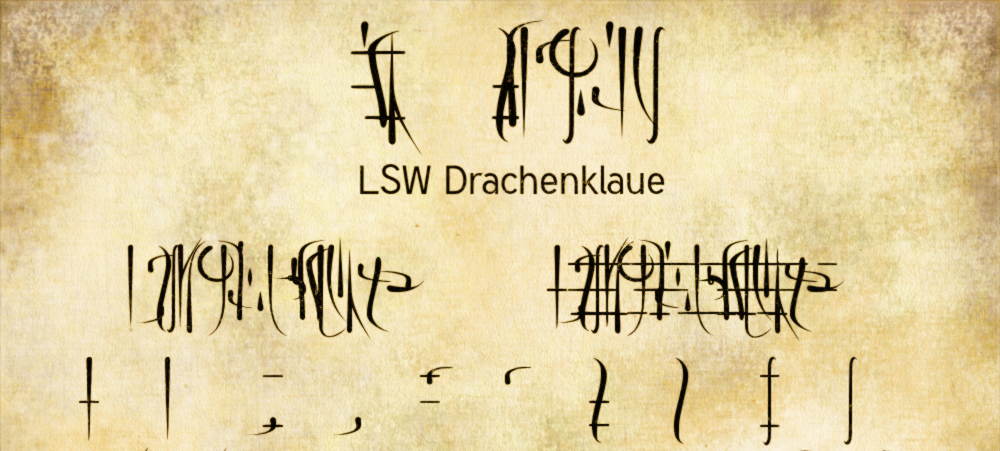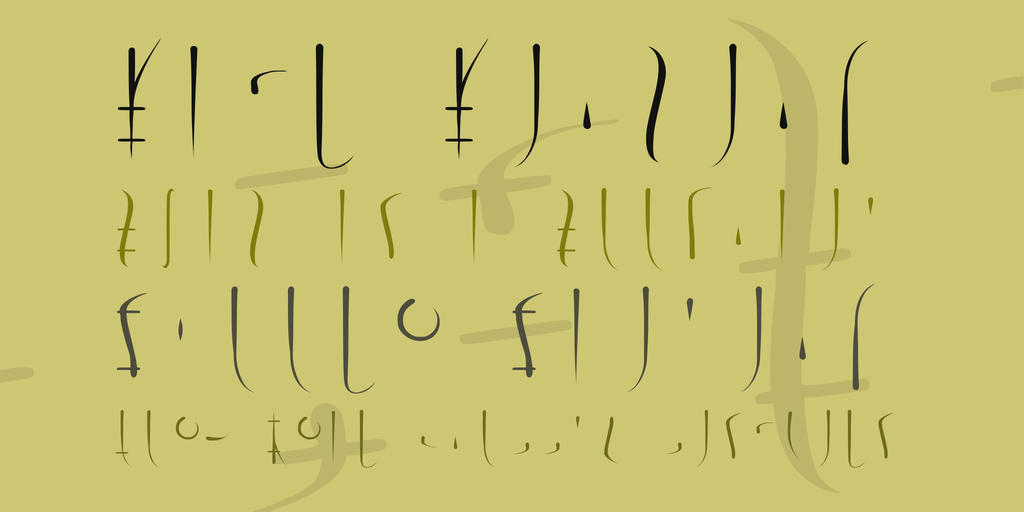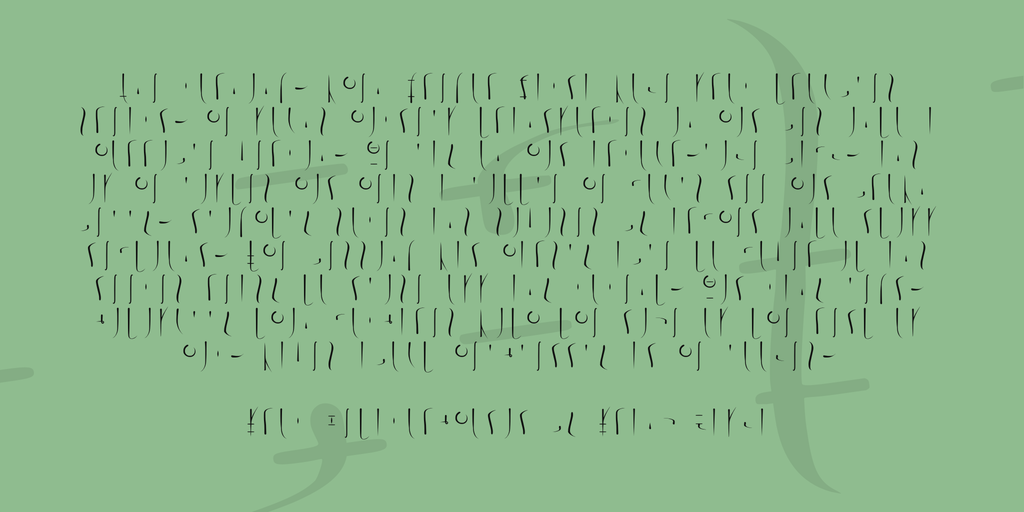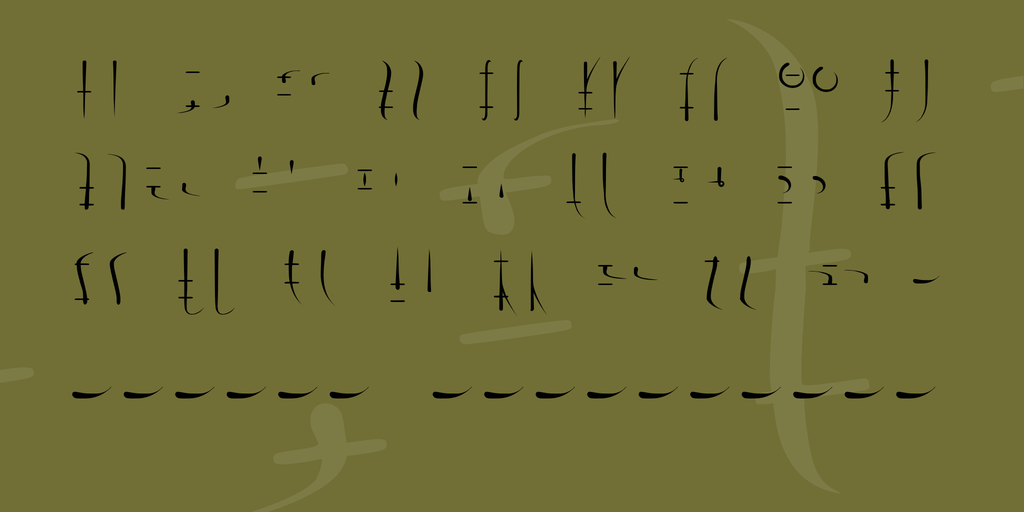
LSW Drachenklaue Font
All right! New font. I actually wanted to do something different at first (a true font, you know, one that’s usable, with real letters), but that will have to wait because it takes soooooo much time!
This font was made as part of a project with Lese- und Schreibwerkstatt Nalbach. In the last few weeks, we have been covering all kinds of topics related to dragons! In one of those weeks, we made some cryptographic alphabets. Alphabets like dragons would use them. So we thought it would be nice to provide anyone who is interested with a font. Hence the name: Drachenklaue, “dragon’s claw” or dragon’s writing”.
So, here’s the concept: Dragons would resort to a natural advantage when it comes to writing, their claws. That means that their alphabet consists of mostly simple lines. Due to their global presence in mythology, their writing system would be inspired by existing ones.
I thought, I’d try to implement a few aspects from other writing systems. The design of the glyphs might remind you of traditional Asian inking, the horizontal lines in the capital letters were an attempt at creating a ligature, like in Arabian, but I used three lines, which makes it look a bit like a musical staff.
At the same time, the horizontal lines were also a nice way for me to make sure I had a baseline of some sorts.
I used a few ideas of another, more complex, fantasy alphabet that I’ve created a few years ago. I might make it a font some day as well. Unfortunately, the spacing won’t make it such a good design as this one.
I realise that, while the design might be interesting, the font is actually not all that legible. Even if I had done some kerning. Oh well…
This is probably the final version of the font. For me, it’s purely for entertainment purposes and it looks OK right now.